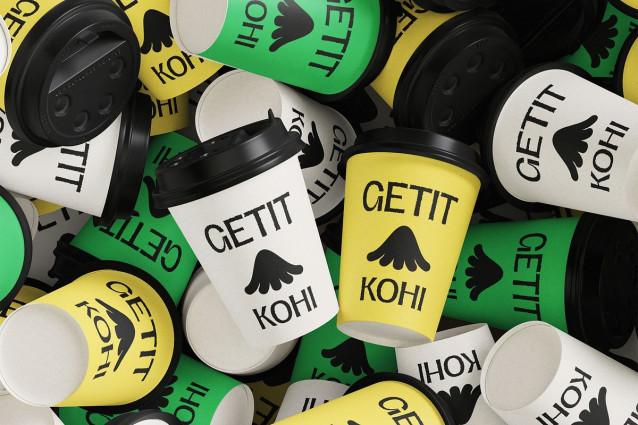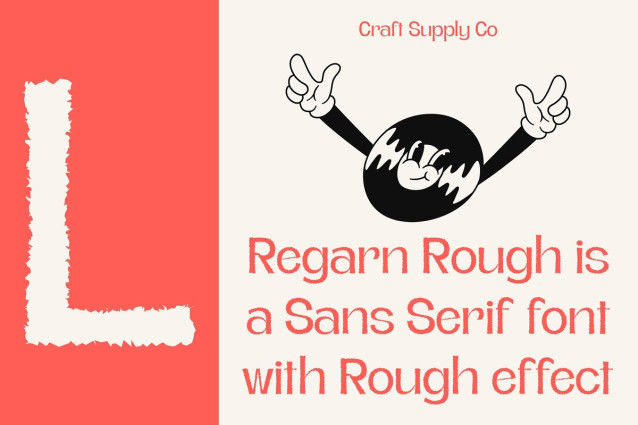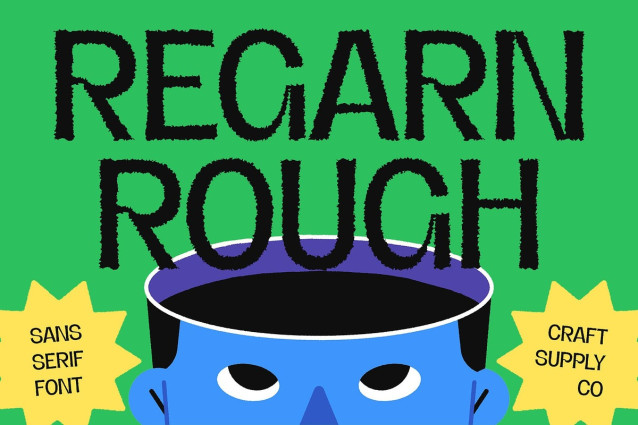
Regarn Rough Font
Regarn Rough Font is a display sans serif font built for bold visual presence. Its clean, geometric letterforms offer clarity and precision, while the bold weight ensures maximum impact. Designed to communicate strength and professionalism, it’s ideal for headlines, titles, and any layout that needs to stand out.
Strong, Assertive, and Readable With a focus on legibility and form, Regarn Rough delivers a powerful tone without sacrificing readability. Each character is carefully constructed to maintain balance and sharpness, making the font highly effective across digital and print platforms—from branding to editorial design.
Rough Texture for Organic Grit Adding contrast to its clean modern base, a gritty rough texture introduces a sense of rawness and depth. This textured finish softens the precision of the letterforms, giving the font a handcrafted, vintage-inspired look that feels tactile and full of personality.
Ideal for Striking, Character-Driven Design Regarn Rough is perfect for visual projects that demand boldness with soul. Whether you’re designing posters, logos, magazine covers, or creative branding, this font delivers a striking combination of modern clarity and rugged texture. It’s a go-to choice for designers seeking a strong yet character-rich typographic voice.